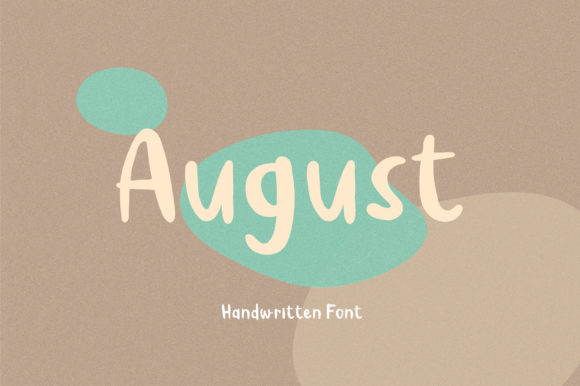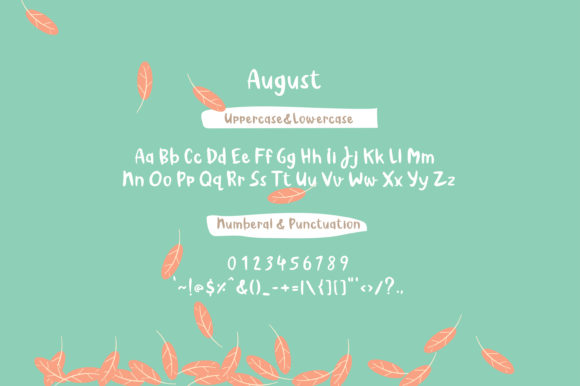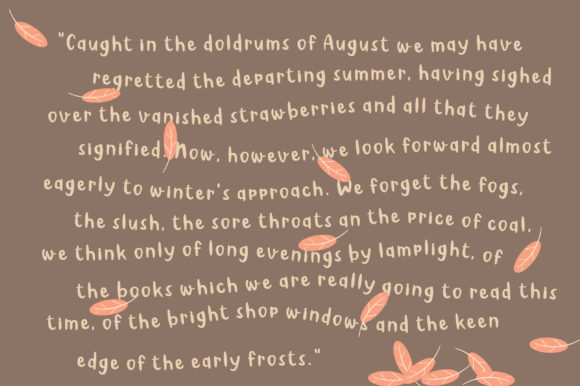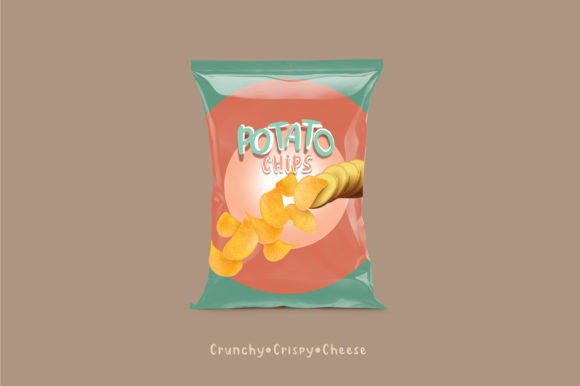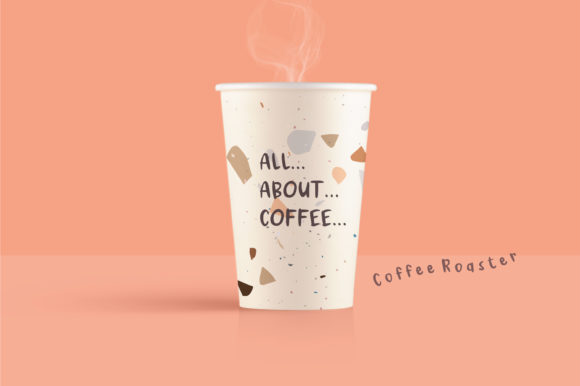
August Font
About August Font
August is a simple handwritten font created with natural strokes that give a very natural vibe to your designs. Add it to your most creative ideas and notice how it makes them come alive!